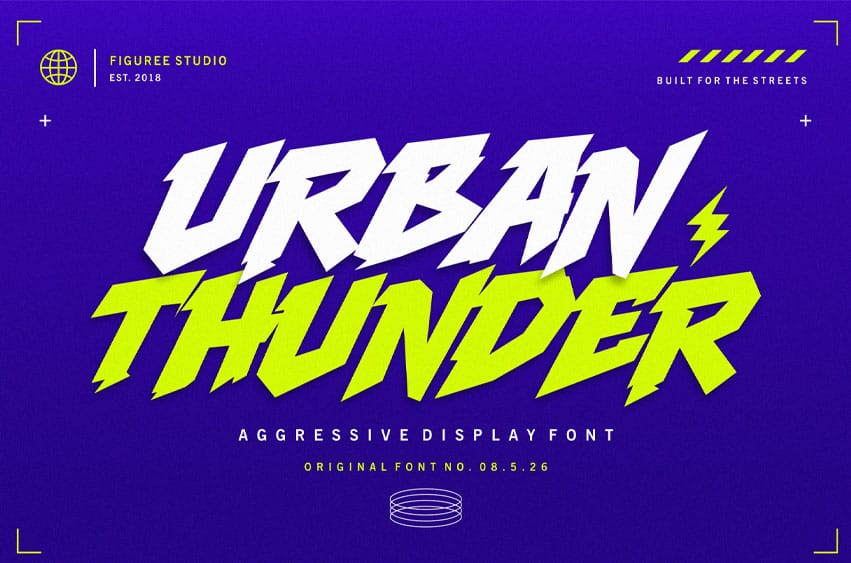
Urban Thunder Font Bring energy and strong visual impact into your projects with Urban Thunder – Aggressive Display Font. Designed with sharp character shapes and bold personality, this typeface is built for designs that need attention, movement, and powerful presentation.
Urban Thunder combines an aggressive display style with strong readability, making it suitable for posters, gaming graphics, event promotions, YouTube thumbnails, sports visuals, streaming overlays, digital banners, and large headlines. The character construction creates a dynamic appearance that instantly adds intensity without sacrificing clarity.
This font includes uppercase letters, numbers, punctuation, and symbols, giving designers complete flexibility when creating standout titles and bold compositions. Its multilingual support also allows broader usage across different languages and international projects.
Whether you are creating action-themed graphics, competition posters, video titles, promotional materials, or energetic branding visuals, Urban Thunder helps deliver a strong message through typography. The aggressive styling creates a sense of motion and impact, making text feel more expressive and attention-grabbing.
Key Features
- Uppercase Characters Included
- Strong letterforms designed for impactful headlines and display use.
- Numbers, Punctuation & Symbols
- Complete character support for flexible layout creation.
- Suitable for broader language coverage and international projects.
- Aggressive Display Style
- Designed to create bold visual communication and energetic layouts.
- High Visibility Letterforms
- Clear shapes that remain readable in posters, thumbnails, and banners.
- Versatile Creative Usage
- Suitable for gaming graphics, event visuals, sports promotions, posters, streaming assets, and social media content.
Why Designers Love It Designers choose Urban Thunder because it delivers strong typography without unnecessary complexity. The font naturally works as the center element of a composition, helping headlines become more dominant and easier to notice.
Its aggressive character style adds intensity to gaming projects, competition graphics, event announcements, and promotional content. Meanwhile, the multilingual support and complete character set allow smoother workflows when working on different markets and audiences.
The font also adapts well across various media formats. From large-scale posters to digital thumbnails and title screens, Urban Thunder maintains its impact and readability. This flexibility makes it useful for projects that demand strong visual hierarchy and energetic presentation.